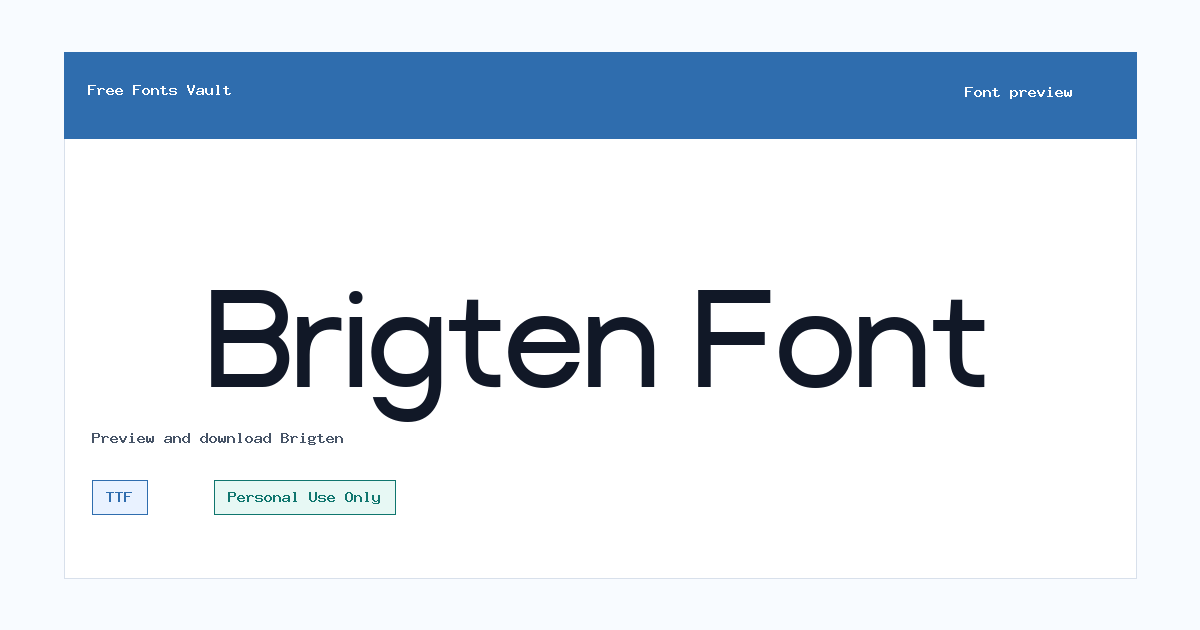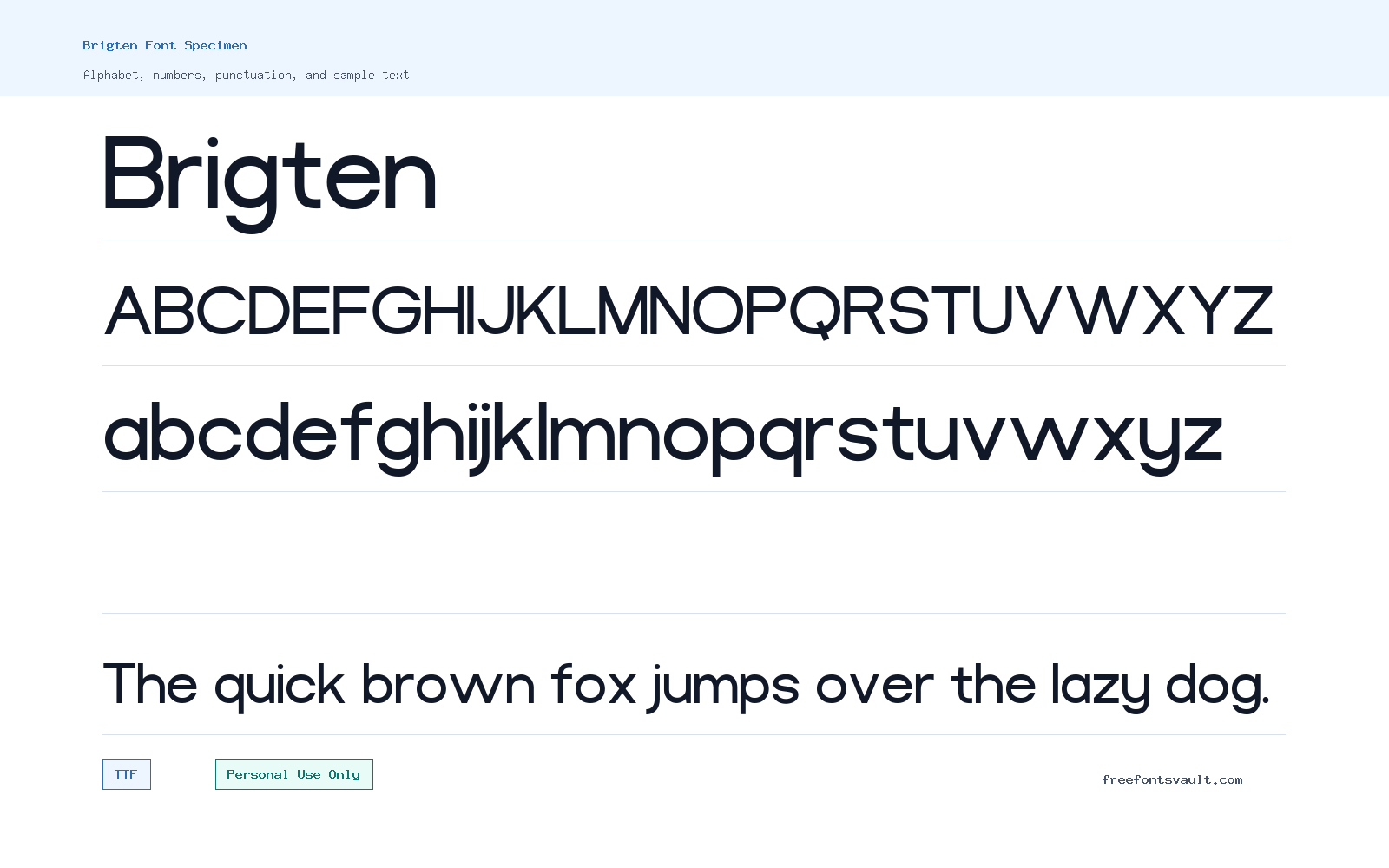
Brigten
Brigten font.
Brigten is a sans serif font for visitors who want a clean, straightforward type style to test in headlines, short labels, and display text. The download includes a regular TTF font file and is marked for Personal Use Only.
About Brigten Font
Brigten keeps the focus on simple sans serif lettering rather than decorative detail. That makes it a practical choice to preview for posters, social graphics, title text, branding drafts, mood boards, and other personal design experiments where you want text that feels direct and easy to scan. Because only the regular style is listed, it is best to test the font in short settings first instead of building a full typography system around it.
Use the preview tool with the exact words you plan to design with. Try your project title in uppercase, lowercase, and mixed case, then check spacing around tight letter pairs and longer words. Brigten may work well as a main display face when paired with a quieter serif or a neutral sans serif for body copy. For paragraphs, menus, or small captions, test carefully at real size before using it, since a single regular weight gives you fewer options for hierarchy and emphasis.
- Best suited for previewing short text, headings, labels, and personal design drafts
- Personal posters, social media graphics, and title layouts
- Logo mockups, branding drafts, mood boards, and short display text
The designer name listed for Brigten is FLAWLESSANDCO. No foundry name or designer website is listed in the font details.
Who designed Brigten?
Brigten is credited to FLAWLESSANDCO in the font details.
What kind of font is Brigten?
Brigten is described as a sans serif font. It is a regular-weight style, so it is most useful for testing clean headings, labels, and short display text.
Can I use Brigten for a logo?